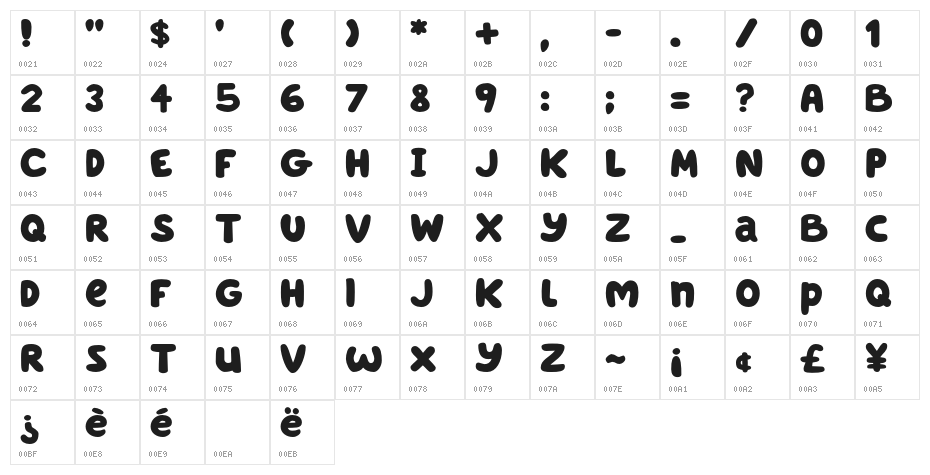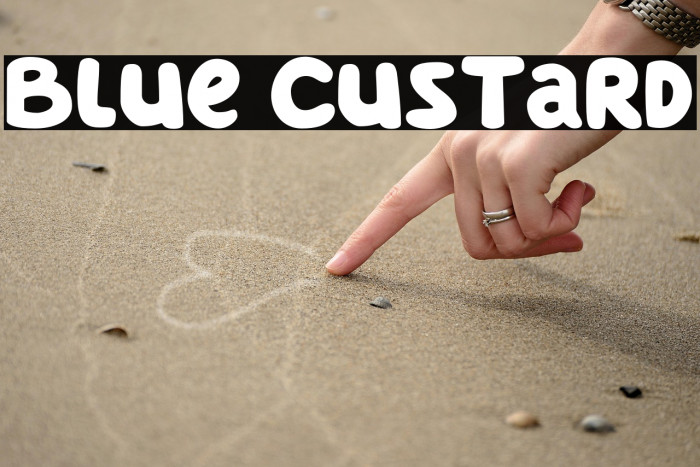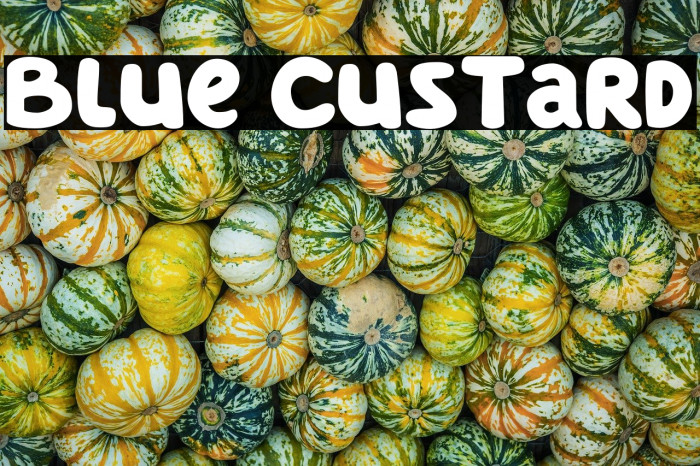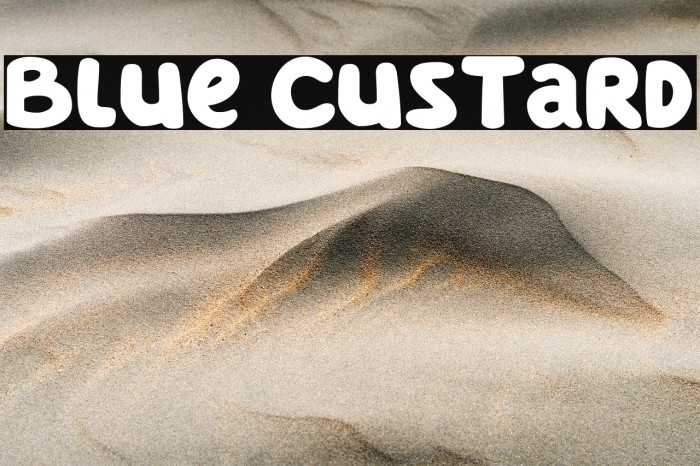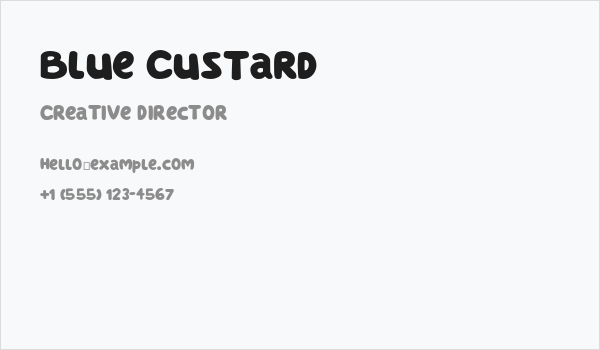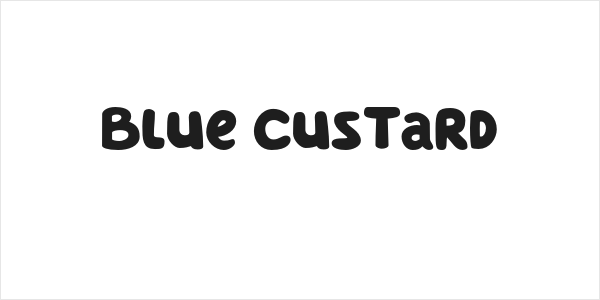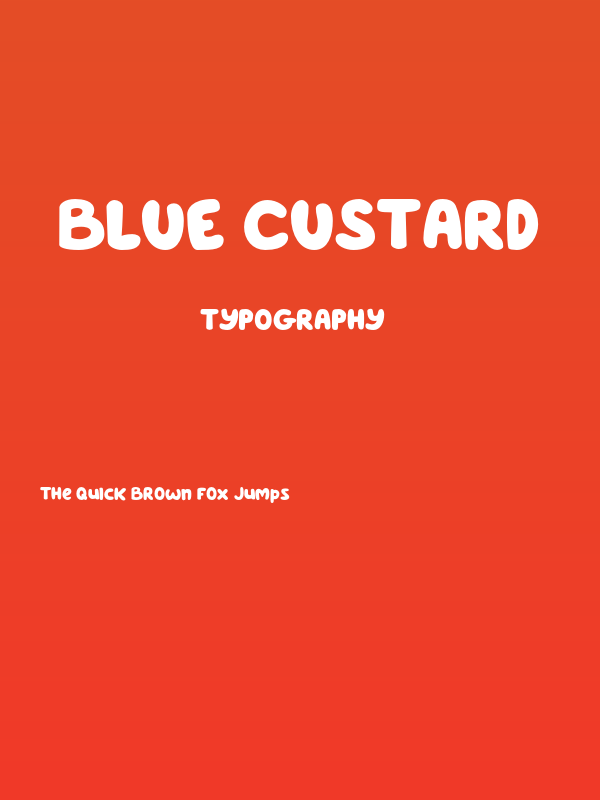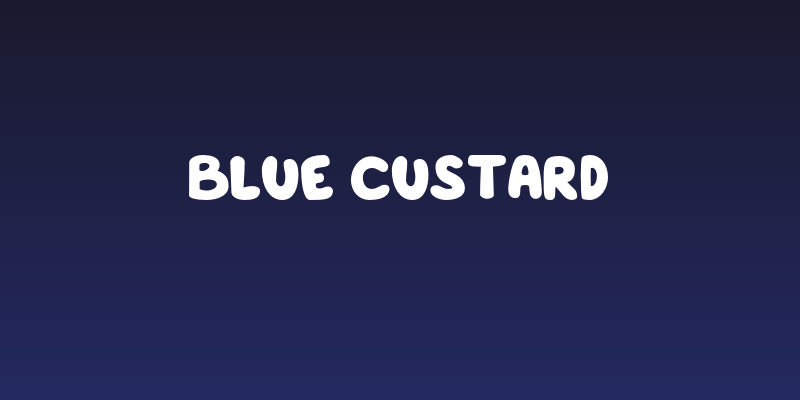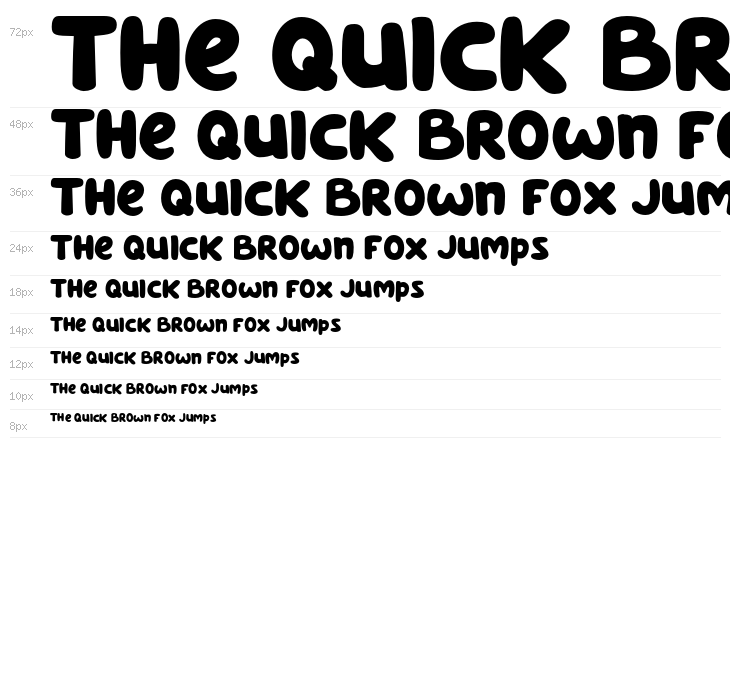
Blue Custard Font
Blue Custard Description
This playful and bold font features rounded, bubbly characters that convey a sense of fun and whimsy. The letters are thick and uniform, with a consistent stroke width that gives the font a cohesive look. The rounded edges and lack of sharp angles contribute to its friendly and approachable appearance. The font includes both uppercase and lowercase letters, numbers, and a variety of special characters, making it versatile for different design needs. Its unique style makes it stand out, perfect for projects that require a touch of creativity and lightheartedness.